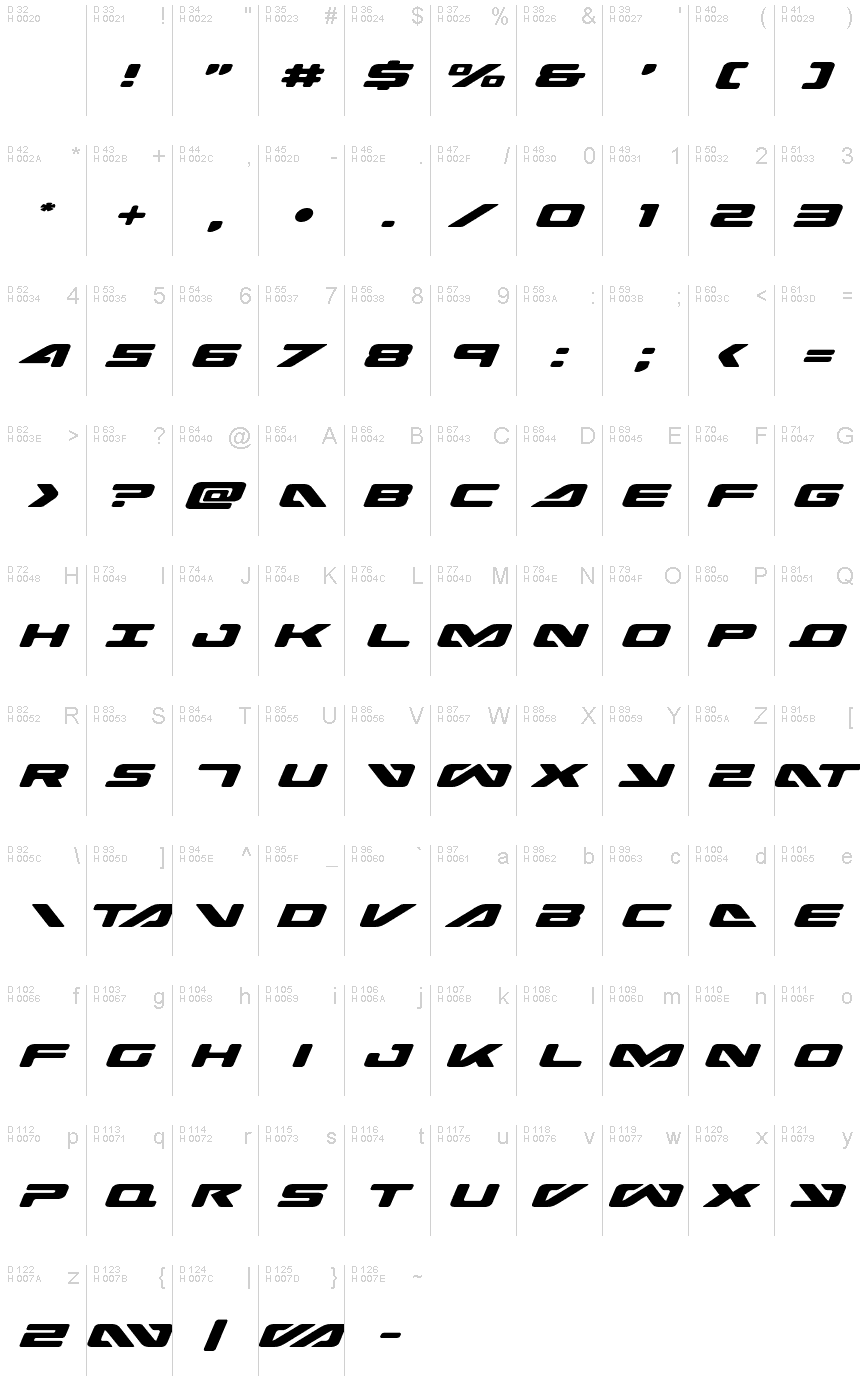
Looking to add a touch of futuristic flair to your next design project? Look no further than Sea-Dog Expanded Super-Italic, the latest addition to the Sea-Dog font family. Designed by Iconian Fonts, this ultra-expanded, extra-bold display font is perfect for catching the eye and making a statement. With its sleek, super-italic style, Sea-Dog Expanded Super-Italic is ideal for projects that require a bold and daring approach - think sci-fi movie posters, high-tech product packaging or cutting-edge tech websites. So why settle for ordinary fonts when you can make waves with Sea-Dog Expanded Super-Italic?
Sea-Dog Expanded Super-Italic